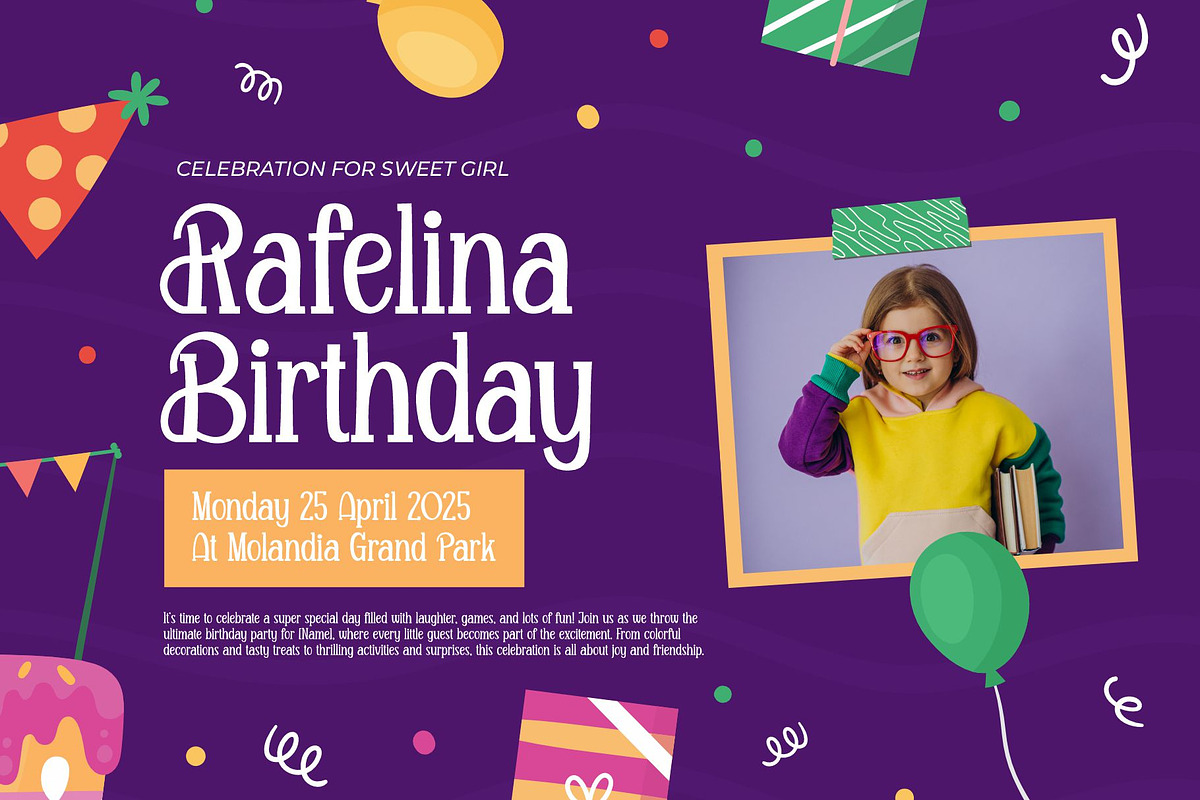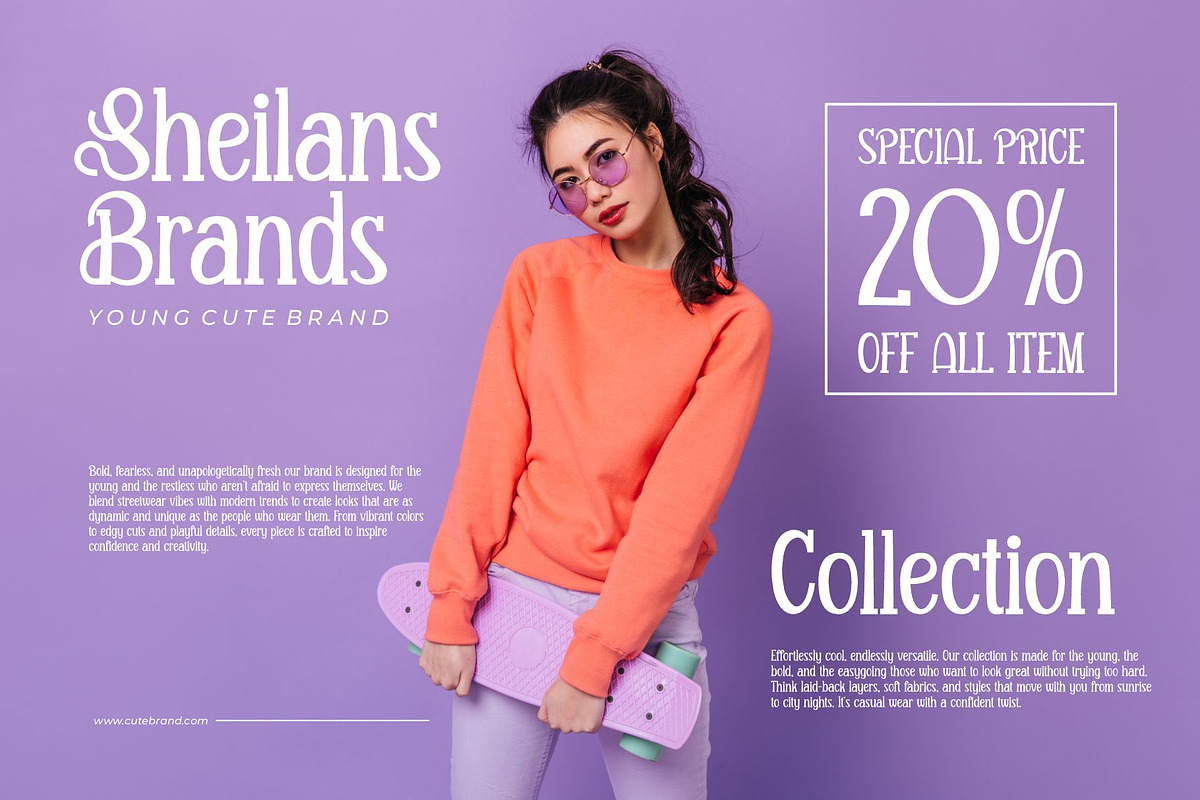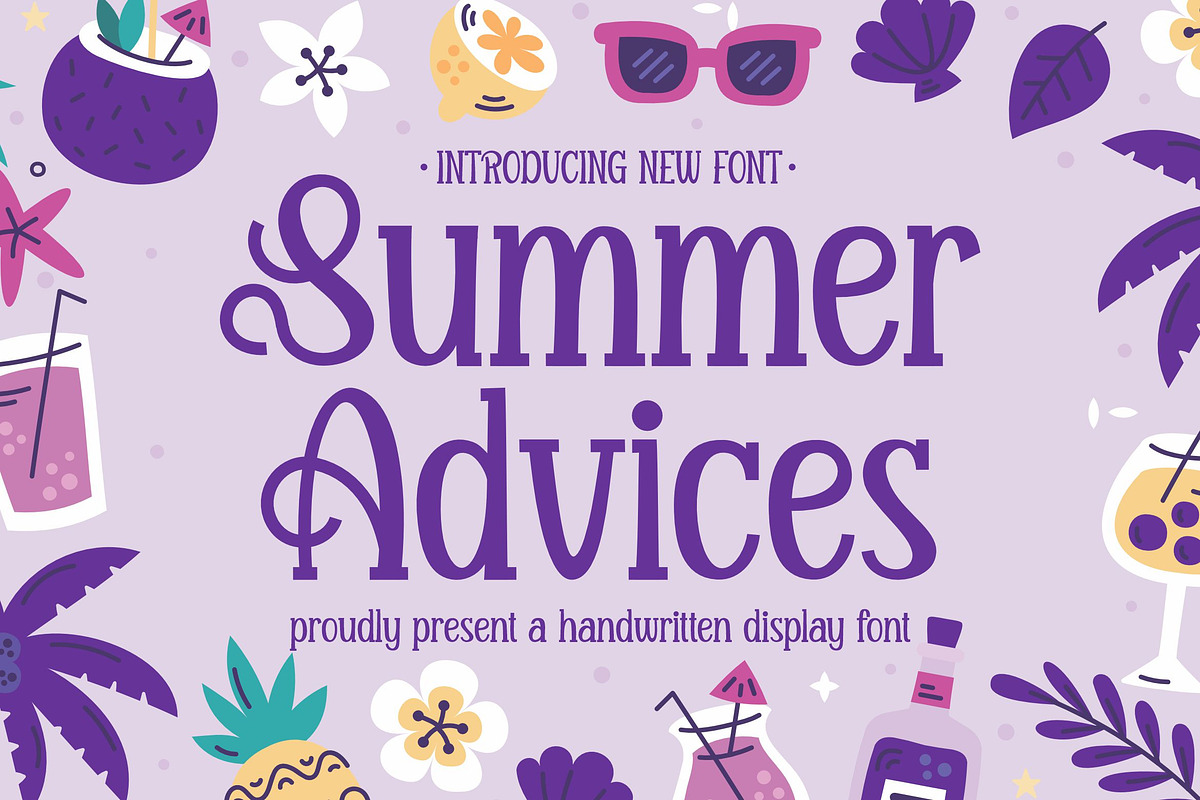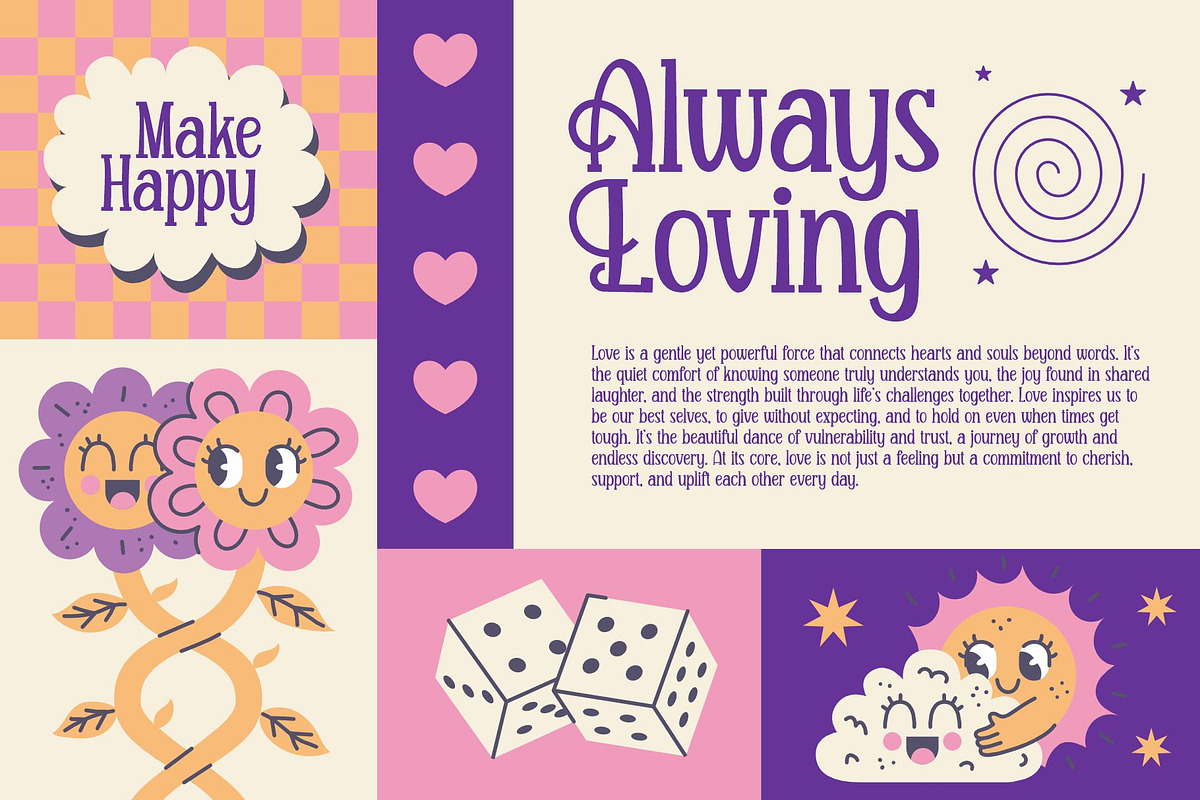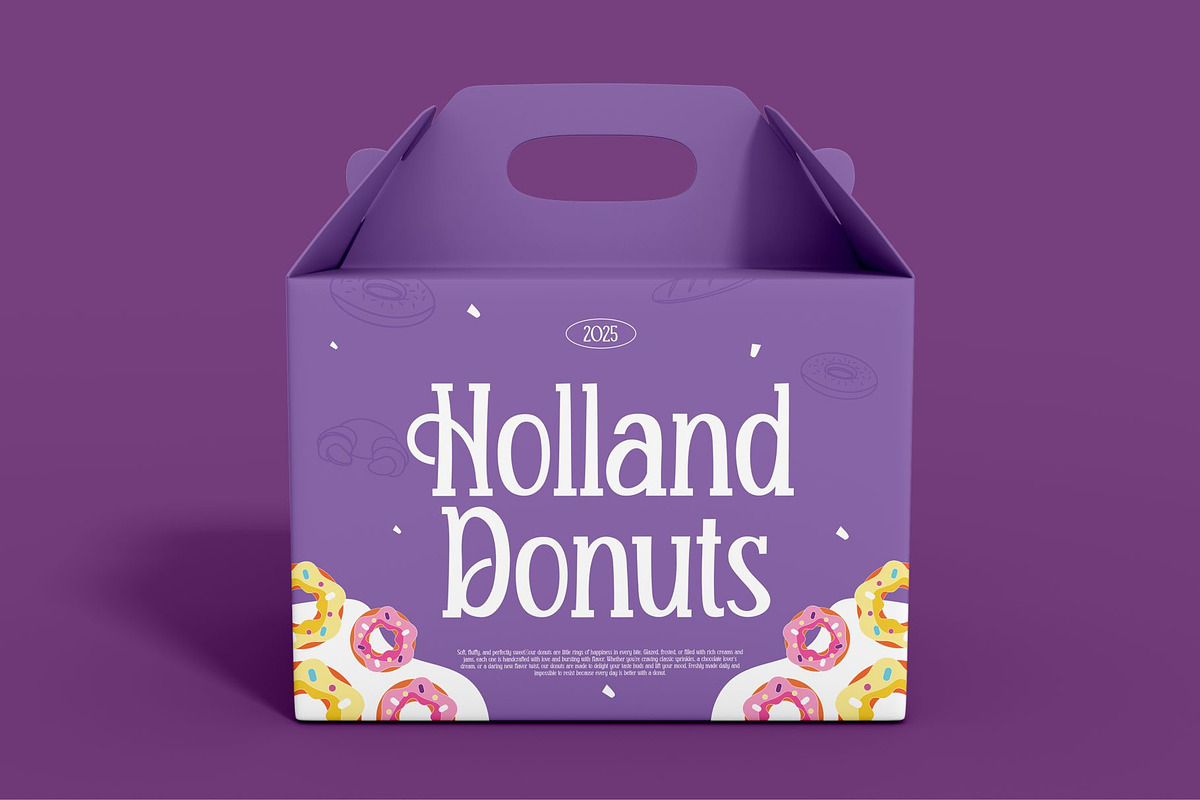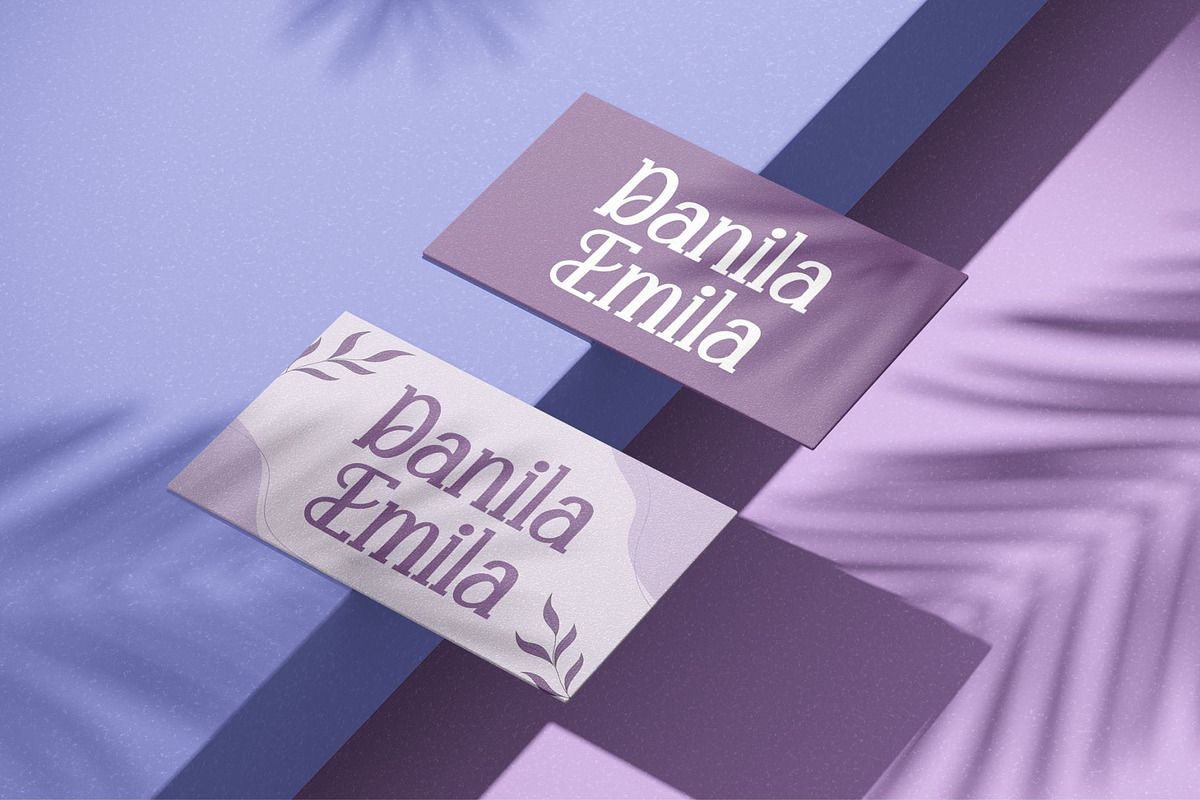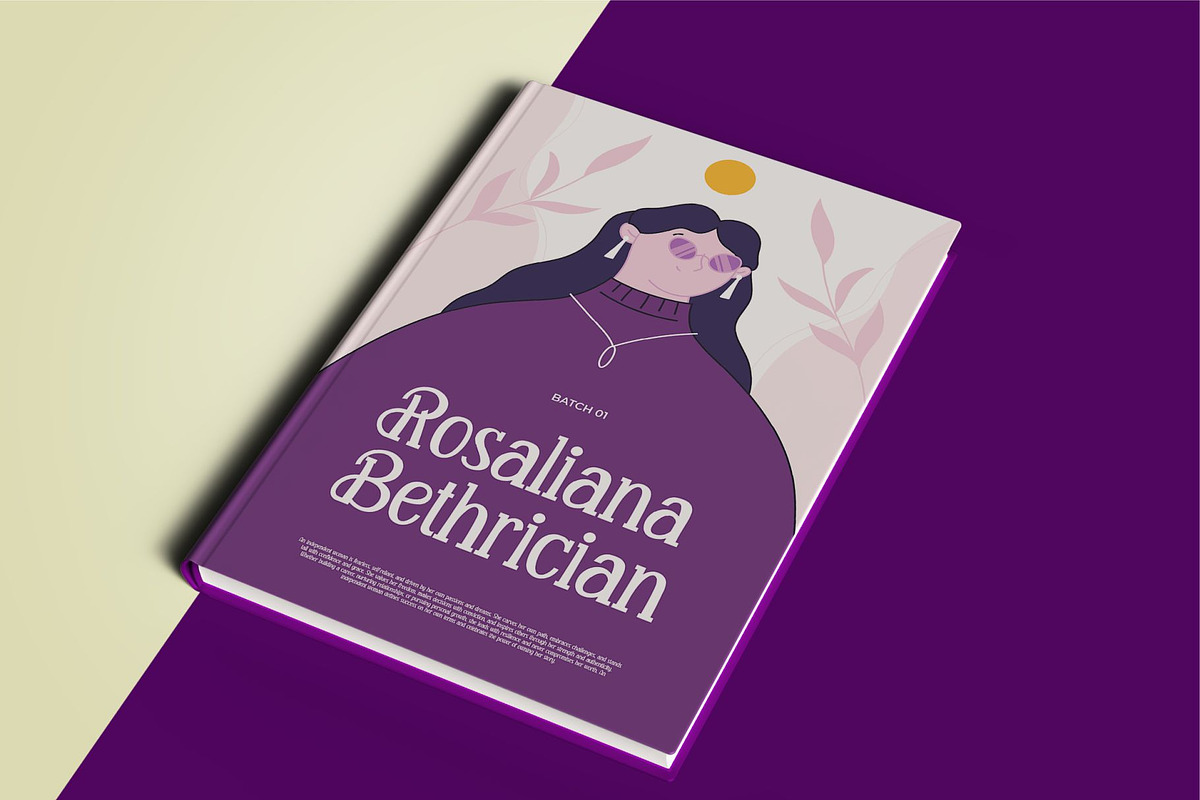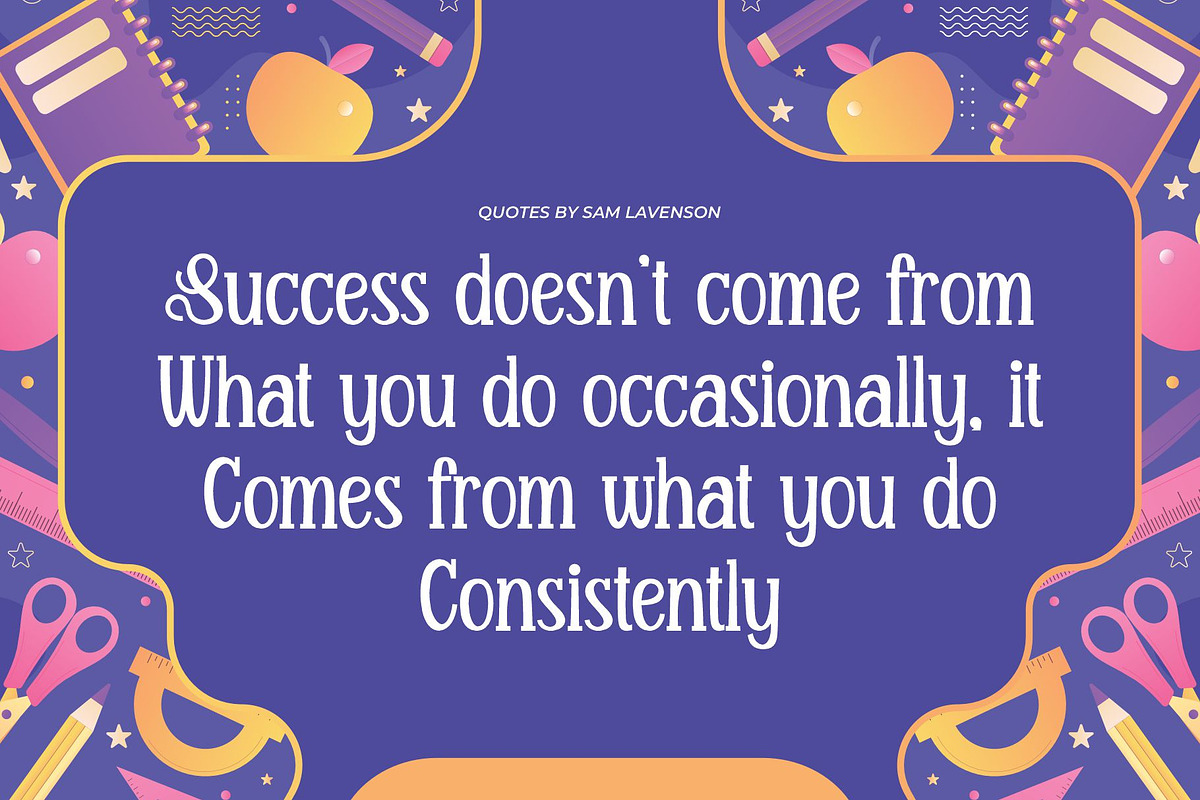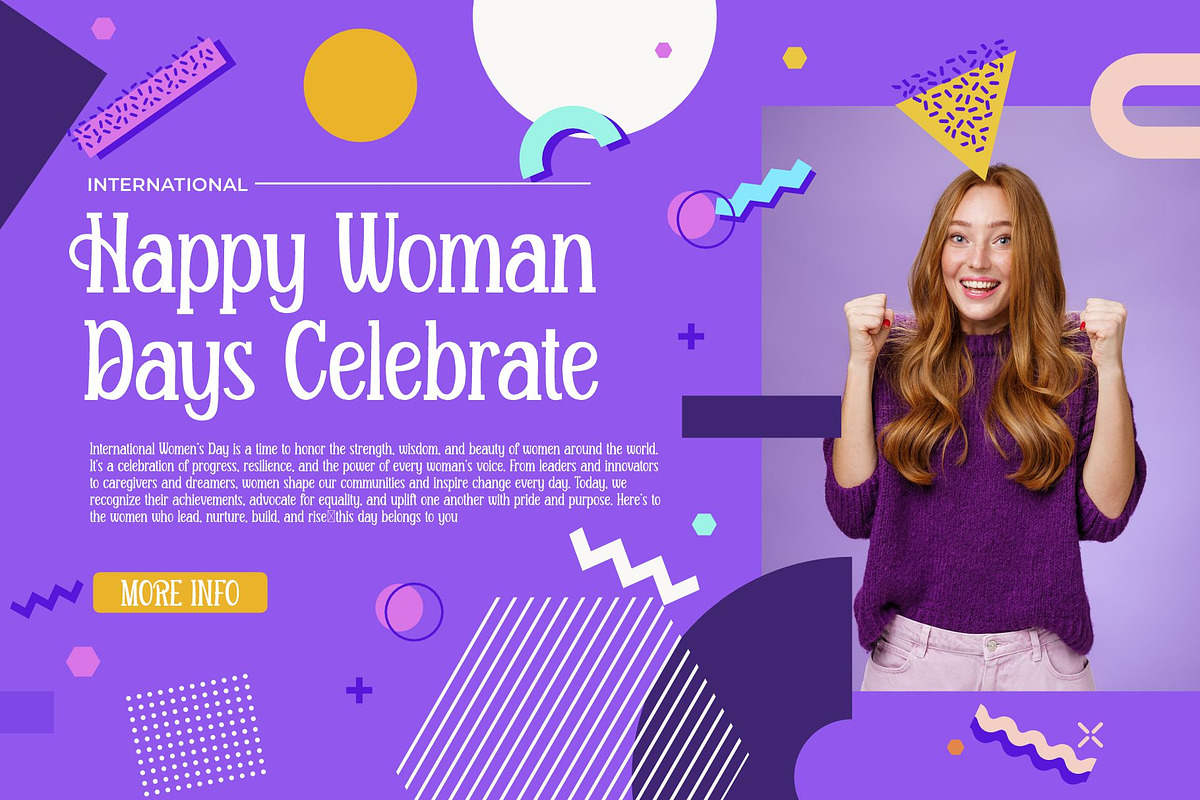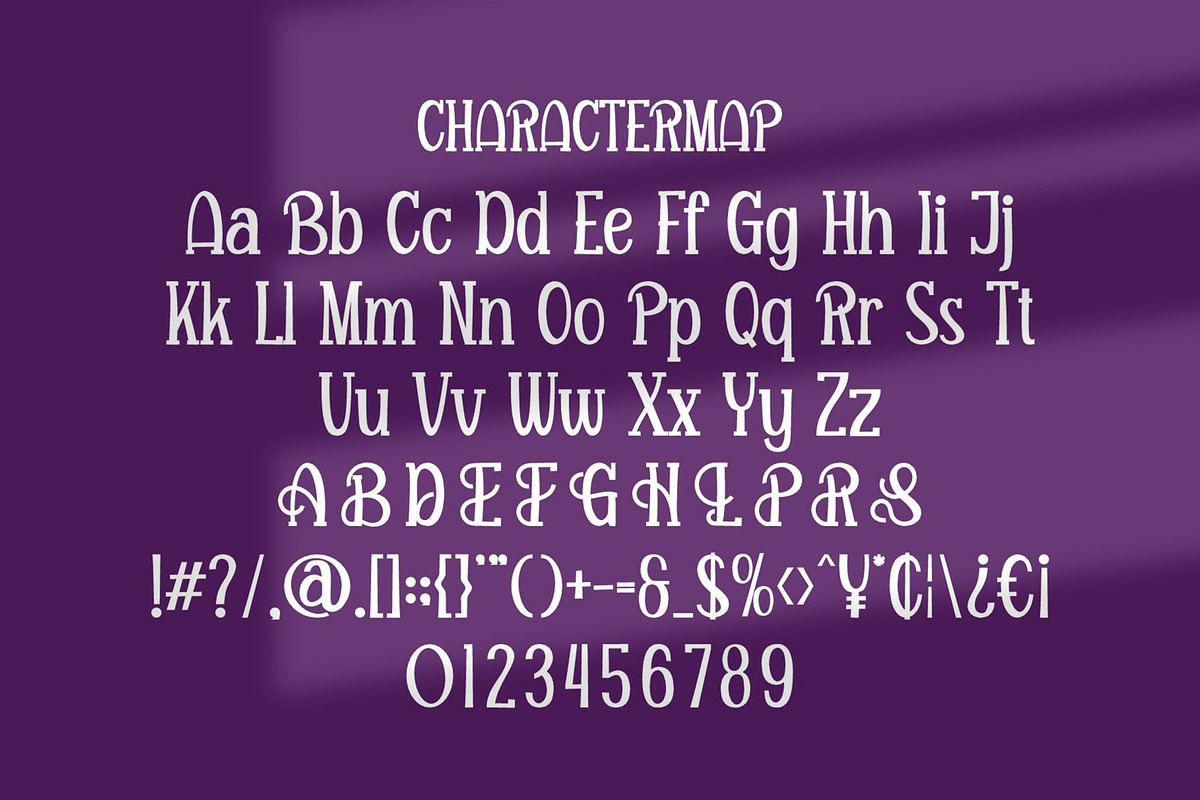
Summer Advices | Handwritten Display
Introducing Summer Advices is display Font modern, trendy, bouncy and cute display font. It has a unique character with wood theme. It is perfect to be combined with invitation card designs, company logos, movie titles, movie names, business cards, book titles, brand names and various other designs.